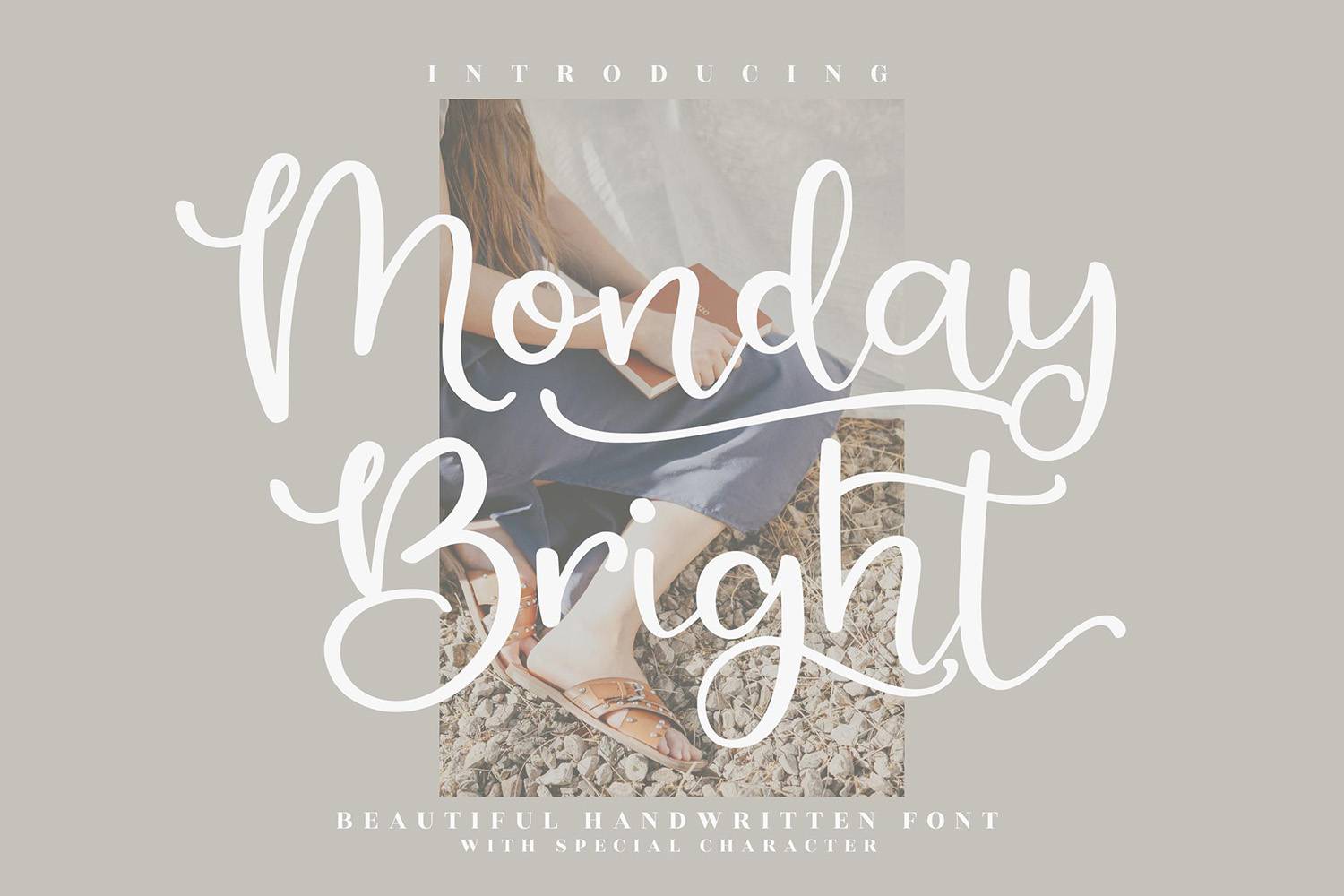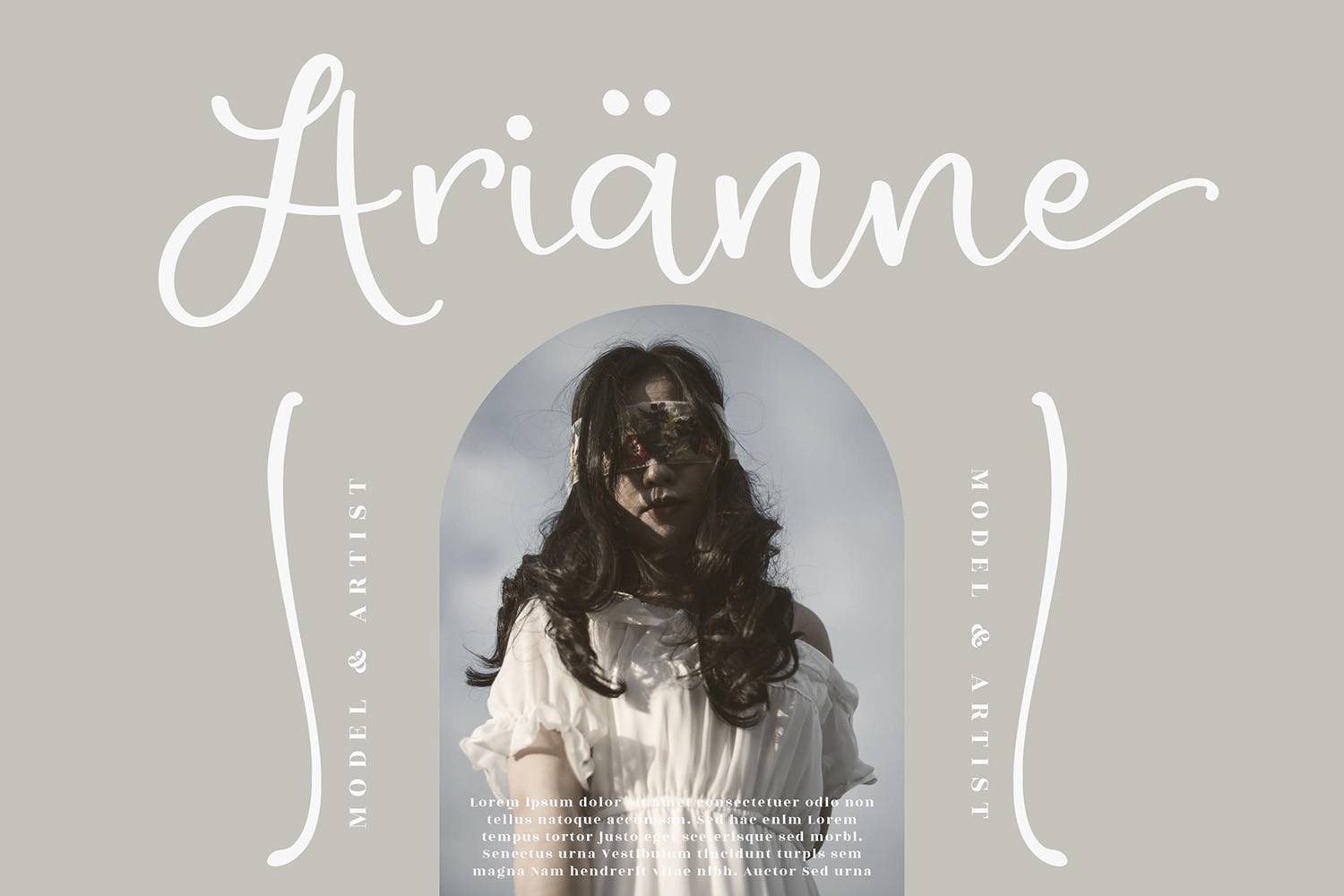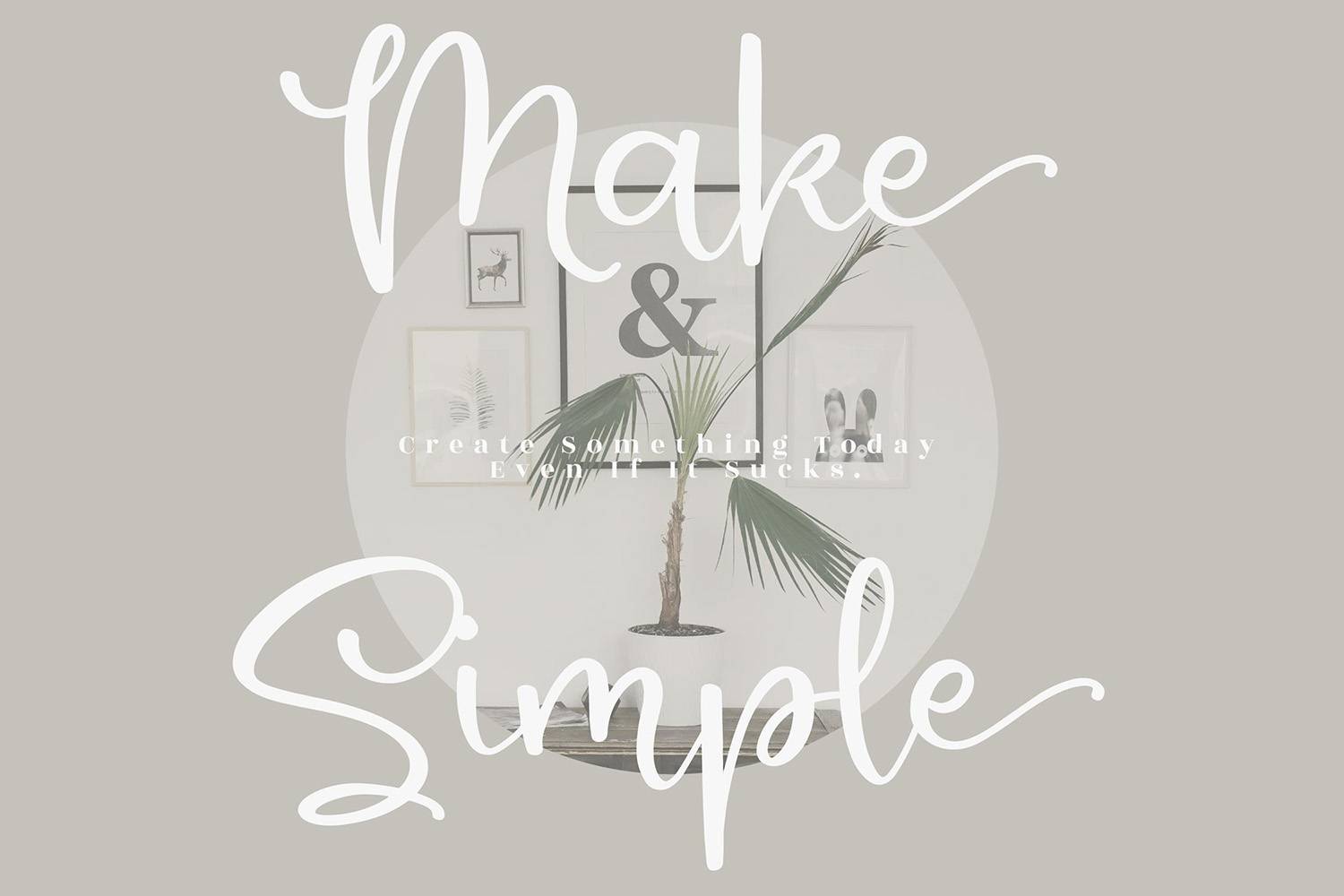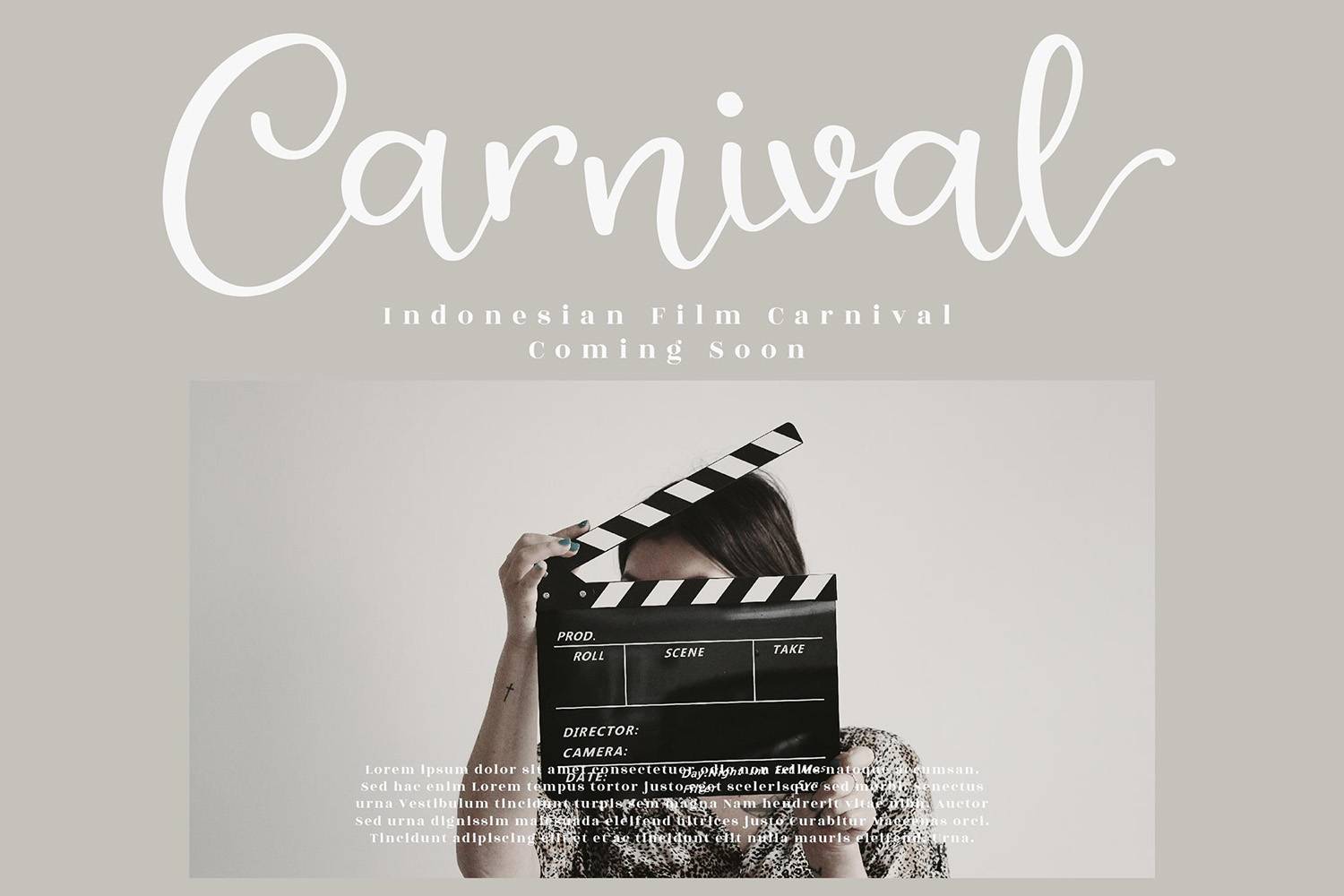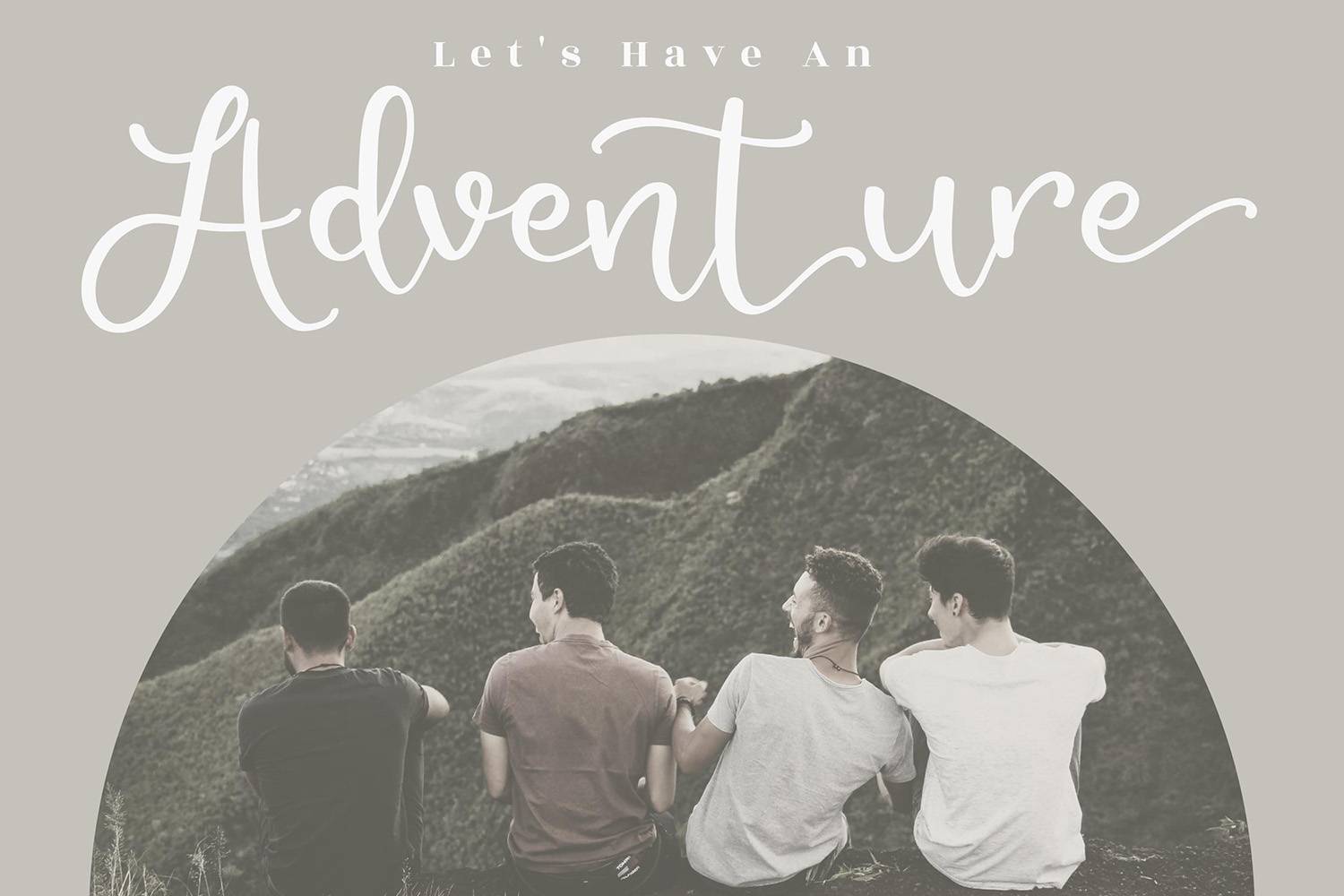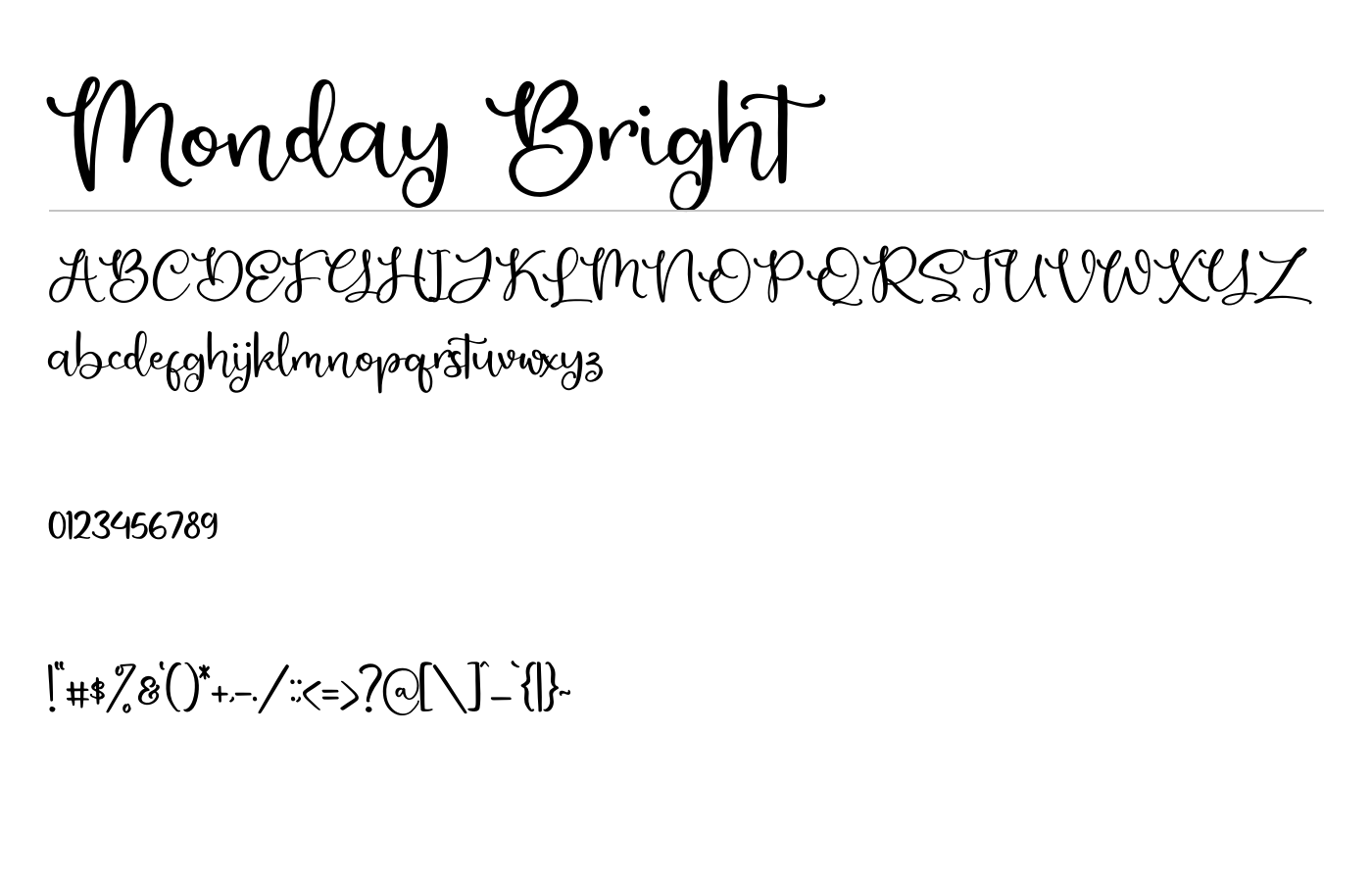
Monday Bright is a playful and elegant script font with a hand-drawn feel, featuring smooth, flowing lines and charming, rounded letterforms. Its whimsical style and moderate contrast make it perfect for invitations, greeting cards, branding, and creative projects that seek a friendly yet stylish touch. This font works well in both display and short text settings where personality and approachability are desired.
Monday Bright Font
About Monday Bright Font